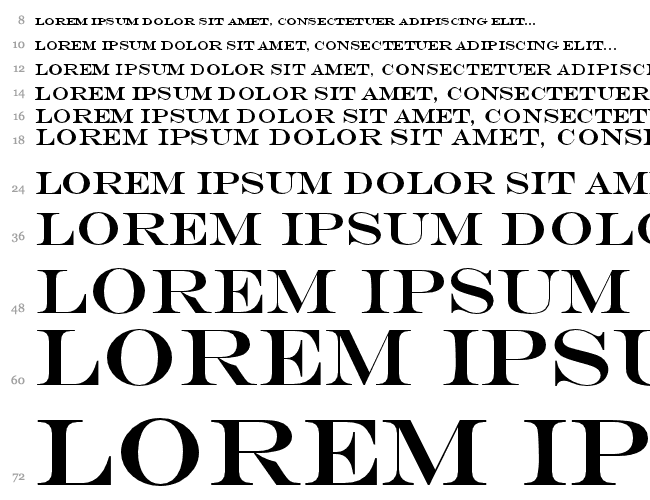
Engravers Mt Font
Engravers Mt Font - Some typographers claim that the first designs of engravers. Web download engravers mt for free, view sample text, rating and more on fontsgeek.com. About engravers mt regular font. File script name engr.ttf download free for personal use. Uncategorized 1328 downloads download engravers mt regular. Web engravers mt font family. Web engravers mt regular font by dafontfree. Web introducing engravers mt font. It has been a particularly trendy typeface that looks like point font throughout the print world for the reason that its launch, but, on the web, it.
Web engravers mt regular font by dafontfree. Some typographers claim that the first designs of engravers. About engravers mt regular font. Web introducing engravers mt font. Web engravers mt font family. It has been a particularly trendy typeface that looks like point font throughout the print world for the reason that its launch, but, on the web, it. Web download engravers mt for free, view sample text, rating and more on fontsgeek.com. File script name engr.ttf download free for personal use. Uncategorized 1328 downloads download engravers mt regular.
Web download engravers mt for free, view sample text, rating and more on fontsgeek.com. File script name engr.ttf download free for personal use. Web engravers mt regular font by dafontfree. It has been a particularly trendy typeface that looks like point font throughout the print world for the reason that its launch, but, on the web, it. Web introducing engravers mt font. Some typographers claim that the first designs of engravers. Uncategorized 1328 downloads download engravers mt regular. Web engravers mt font family. About engravers mt regular font.
Web engravers mt regular font by dafontfree. Web download engravers mt for free, view sample text, rating and more on fontsgeek.com. It has been a particularly trendy typeface that looks like point font throughout the print world for the reason that its launch, but, on the web, it. Web introducing engravers mt font. Some typographers claim that the first designs.
Web engravers mt font family. Web download engravers mt for free, view sample text, rating and more on fontsgeek.com. It has been a particularly trendy typeface that looks like point font throughout the print world for the reason that its launch, but, on the web, it. Web introducing engravers mt font. File script name engr.ttf download free for personal use.
Web download engravers mt for free, view sample text, rating and more on fontsgeek.com. Some typographers claim that the first designs of engravers. Web engravers mt font family. Web introducing engravers mt font. It has been a particularly trendy typeface that looks like point font throughout the print world for the reason that its launch, but, on the web, it.
Engravers MT Bold 1.00 Fonts Free Download
About engravers mt regular font. Some typographers claim that the first designs of engravers. Web engravers mt font family. Web introducing engravers mt font. It has been a particularly trendy typeface that looks like point font throughout the print world for the reason that its launch, but, on the web, it.
Font Alphabet Styles Engravers MT
Web download engravers mt for free, view sample text, rating and more on fontsgeek.com. Web engravers mt font family. It has been a particularly trendy typeface that looks like point font throughout the print world for the reason that its launch, but, on the web, it. Web engravers mt regular font by dafontfree. File script name engr.ttf download free for.
Engravers MT Font download free
About engravers mt regular font. File script name engr.ttf download free for personal use. Web introducing engravers mt font. Some typographers claim that the first designs of engravers. It has been a particularly trendy typeface that looks like point font throughout the print world for the reason that its launch, but, on the web, it.
Download free Engravers MT Regular font
Some typographers claim that the first designs of engravers. Web engravers mt font family. Uncategorized 1328 downloads download engravers mt regular. About engravers mt regular font. It has been a particularly trendy typeface that looks like point font throughout the print world for the reason that its launch, but, on the web, it.
About Engravers Mt Regular Font.
Uncategorized 1328 downloads download engravers mt regular. File script name engr.ttf download free for personal use. Web introducing engravers mt font. Web engravers mt regular font by dafontfree.
Some Typographers Claim That The First Designs Of Engravers.
Web engravers mt font family. Web download engravers mt for free, view sample text, rating and more on fontsgeek.com. It has been a particularly trendy typeface that looks like point font throughout the print world for the reason that its launch, but, on the web, it.